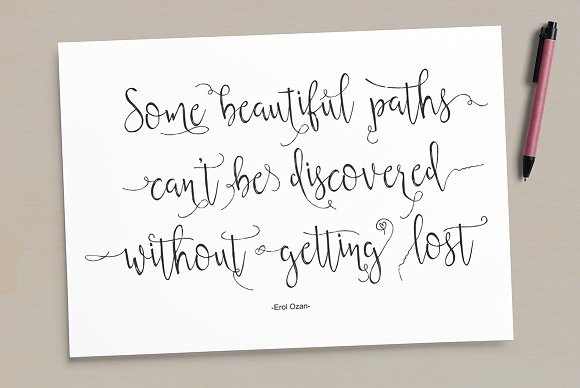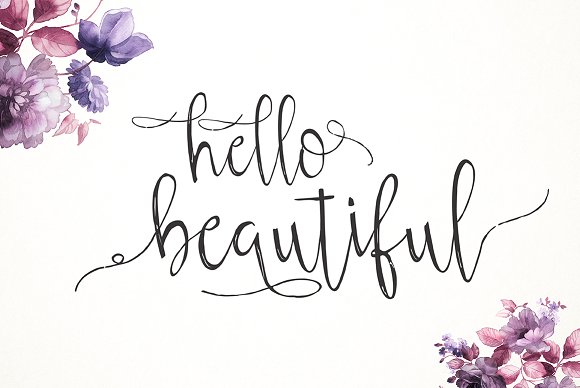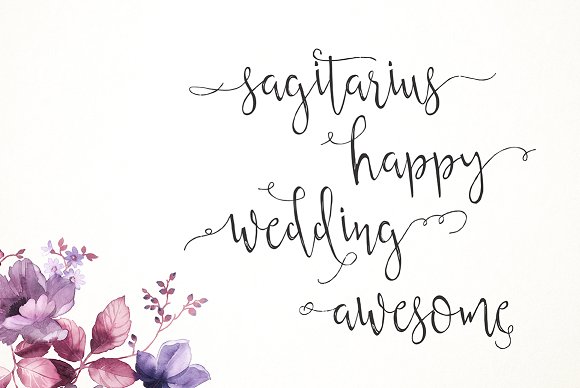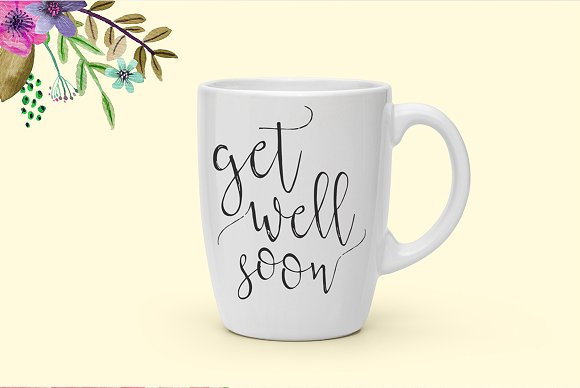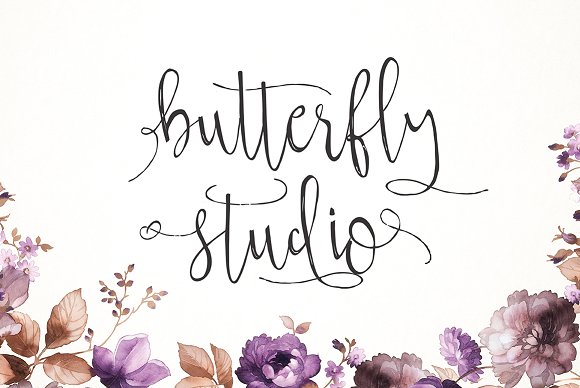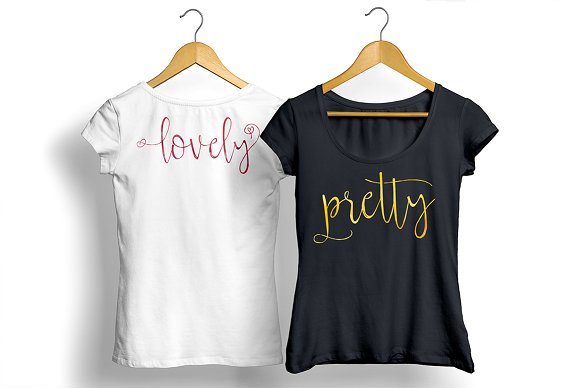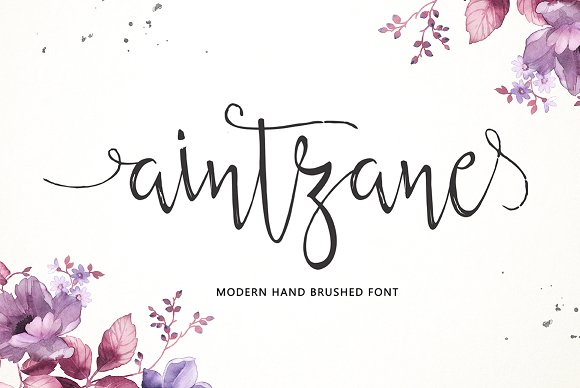
The Aintzane Font: A Handwritten Gem for Creative Projects
I still remember the design project that led me to discover the beautiful Aintzane font. I was working on a branding project for a crafty client, and I needed a handwritten font that would capture the warmth and personality of her handmade products. After hours of searching through font libraries, I stumbled upon Aintzane, and it was love at first sight! ✨
An Honest Review of Aintzane Font
As a designer, I’m always on the lookout for fonts that are both beautiful and functional. Here’s my honest review of Aintzane:
• 💕 Aintzane’s unique, handwritten style adds a touch of warmth and personality to any design project.
• ✅ The font is highly legible, even at small sizes, making it perfect for body text or captions.
• 🌈 Aintzane’s range of OpenType features, including stylistic alternates and glyphs, allows for endless creative possibilities.
• 👍 The font is well-suited for a variety of design projects, from branding and packaging to digital media and print materials.
While Aintzane is an amazing font, there are a few things to keep in mind: 🤔
• ⚠️ Aintzane is a single-weight font, which may limit its versatility in certain design projects.
• 😐 Some users may find the font’s handwritten style too casual or informal for certain applications.
The Story Behind Aintzane Font
Aintzane is a handwritten font created by Area Type, a renowned font foundry. The font’s name is inspired by the Basque region of Spain, where the foundry drew inspiration from the local culture and language.
According to Area Type, Aintzane was designed to capture the warmth and personality of handwritten text. The font’s creator aimed to create a unique, yet legible font that would add a touch of humanity to digital and print designs.
Q: What is Aintzane font?
A: Aintzane is a handwritten font created by Area Type, a renowned font foundry.
Q: What is Aintzane font used for?
A: Aintzane is a versatile font that can be used for a variety of design projects, including branding, packaging, digital media, and print materials.